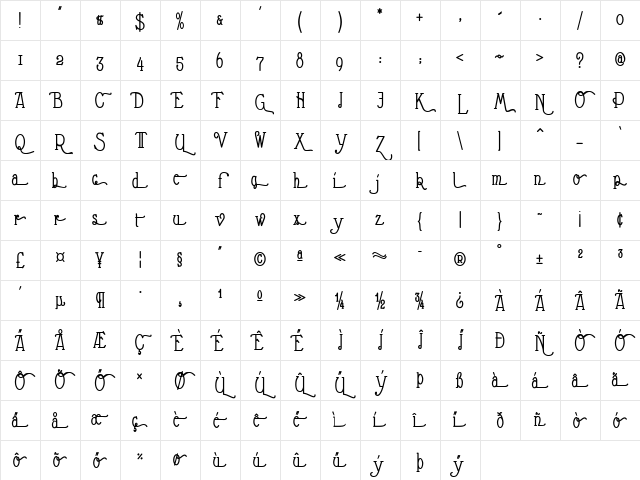
Complete Nathan Alternates Condensed Regular glyph index. Displaying only characters natively supported by Nathan Alternates Condensed Regular font.
Nathan Alternates Condensed is a composed and adaptable typeface that performs quietly and consistently across a wide range of design contexts. Its narrow stance lets it pack a punch even in space-constrained designs.